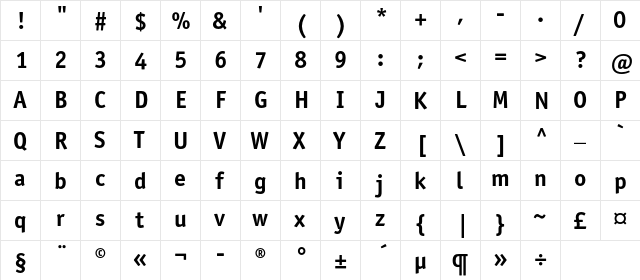
OfficinaSansBoldC Regular
Design Context for OfficinaSansBoldC Typeface
OfficinaSansBoldC offers clean, dependable letterforms without strong stylistic allegiance, making it a practical choice for designers who need flexibility. Its bold stroke weight gives it real presence on the page.